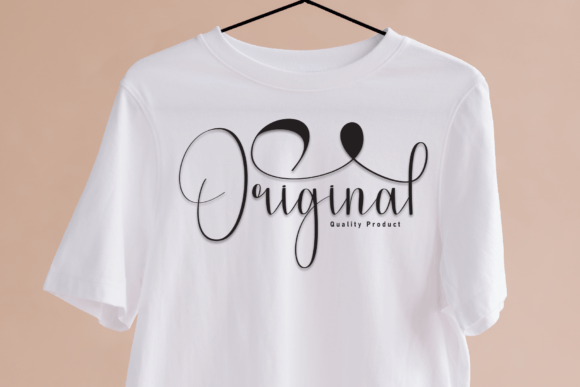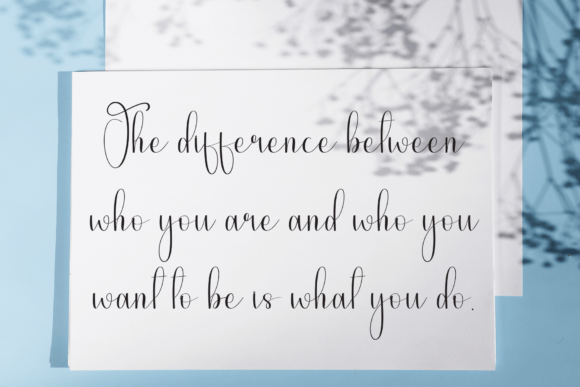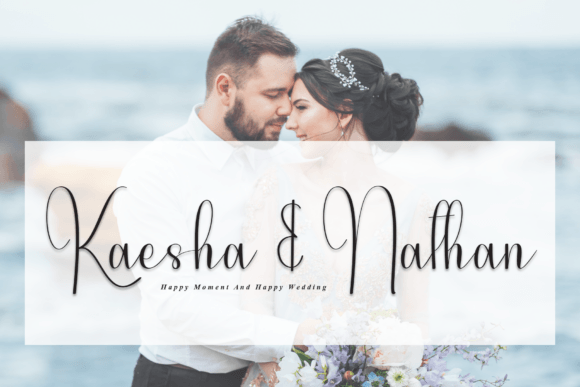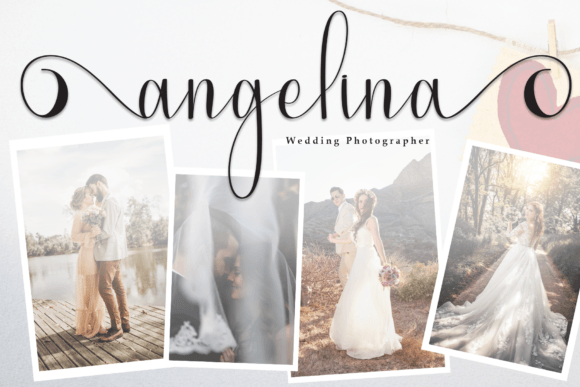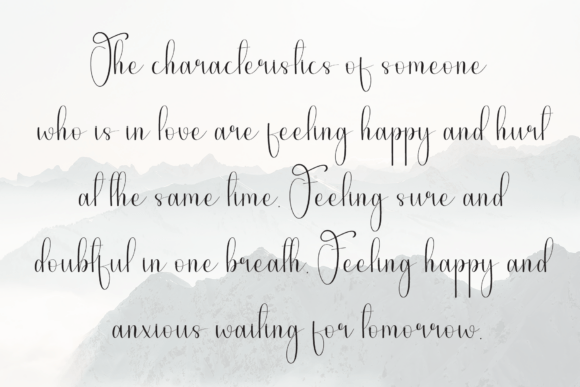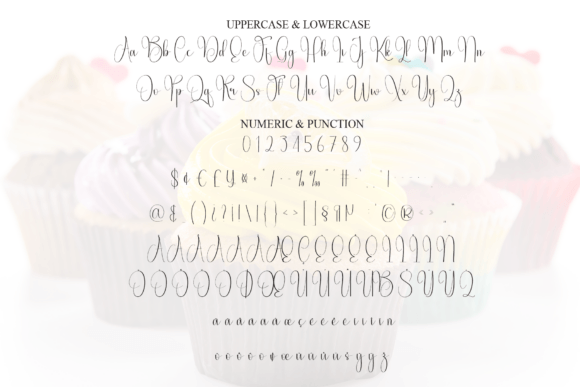
Introducing Cupecake Font: The Sweetest Addition to Your Design Projects
Are you looking for a font that exudes warmth, friendliness, and a touch of whimsy? Look no further than Cupecake Font, a charming and personable handwritten display font that’s perfect for adding a dash of sweetness to your designs. In this article, we’ll dive into the delightful world of Cupecake Font and explore its features, uses, and benefits for designers and crafters.
A Font that Wears its Heart on its Sleeve
Cupecake Font is a true gem in the world of typography. With its endearing sweetness and friendly warmth, this font is sure to capture the hearts of your audience. Its handwritten charm makes it perfect for a variety of design projects, from wedding invitations and greetings cards to branding, packaging, and more. Whether you’re a designer, crafter, or DIY enthusiast, Cupecake Font is an excellent choice for adding a personal touch to your creations.
What Makes Cupecake Font So Special?
So, what sets Cupecake Font apart from other fonts? Here are a few features that make it a standout:
- Handwritten charm: Cupecake Font boasts a beautifully crafted handwritten style that’s full of personality and character.
- Friendly warmth: This font exudes a sense of warmth and approachability, making it perfect for designs that require a personal touch.
- Whimsical flair: Cupecake Font has a playful, whimsical quality that adds a touch of fun and creativity to any design.
- Versatility: This font is suitable for a wide range of design projects, from formal events to casual, everyday applications.
Perfect for Wedding Invitations and Greetings Cards
Cupecake Font is an excellent choice for wedding invitations, greetings cards, and other special occasion designs. Its elegant, yet playful style adds a touch of romance and whimsy to any invitation or card. Here are a few ways you can use Cupecake Font for your wedding and greetings card designs:
- Wedding invitations: Use Cupecake Font to create beautiful, one-of-a-kind wedding invitations that set the tone for your special day.
- Greetings cards: Add a personal touch to your greetings cards with Cupecake Font’s friendly, approachable style.
- Save-the-date cards: Make your save-the-date cards stand out with Cupecake Font’s playful, whimsical flair.
Bringing Fun and Whimsy to Your Designs
Cupecake Font is not just limited to formal events or special occasions. Its playful, whimsical nature makes it perfect for adding a touch of fun and creativity to everyday designs. Here are a few ideas for using Cupecake Font in your designs:
- Branding and packaging: Use Cupecake Font to add a playful touch to your brand’s packaging and marketing materials.
- Social media graphics: Make your social media graphics stand out with Cupecake Font’s friendly, approachable style.
- DIY projects: Add a personal touch to your DIY projects, such as crafts, scrapbooking, and journaling, with Cupecake Font.
In conclusion, Cupecake Font is a charming and personable handwritten display font that’s perfect for adding a touch of warmth, friendliness, and whimsy to your designs. With its elegant, yet playful style, this font is suitable for a wide range of design projects, from wedding invitations and greetings cards to branding, packaging, and more. Whether you’re a designer, crafter, or DIY enthusiast, Cupecake Font is an excellent choice for bringing a little sweetness and fun to your creations.